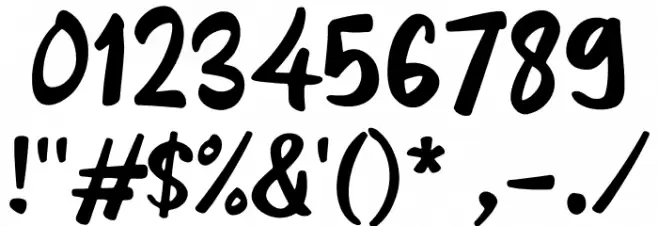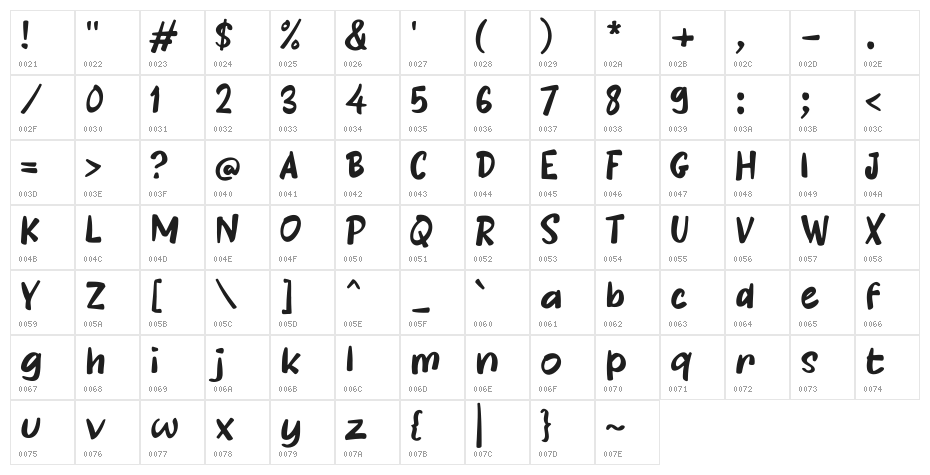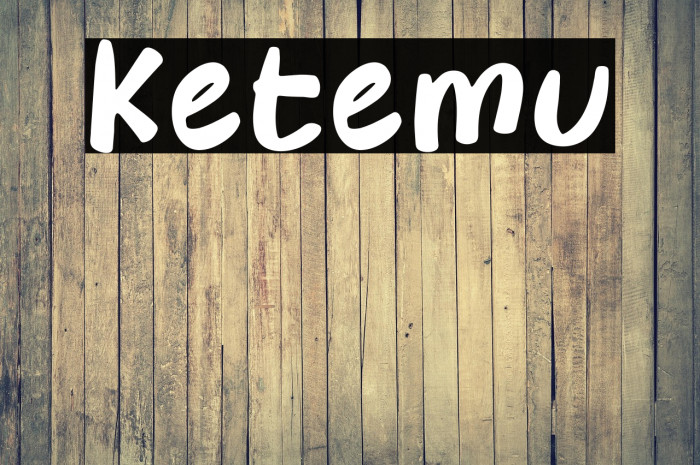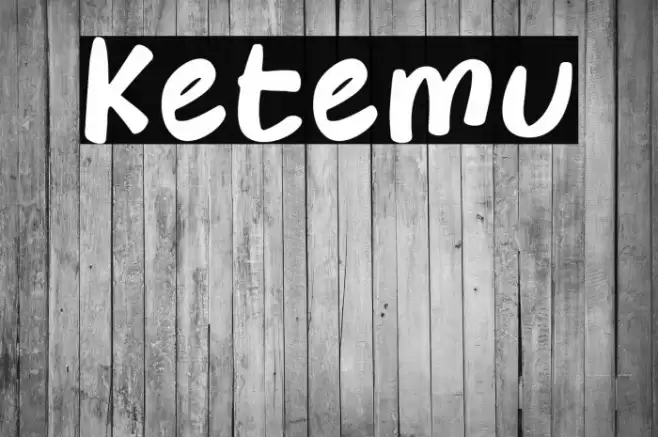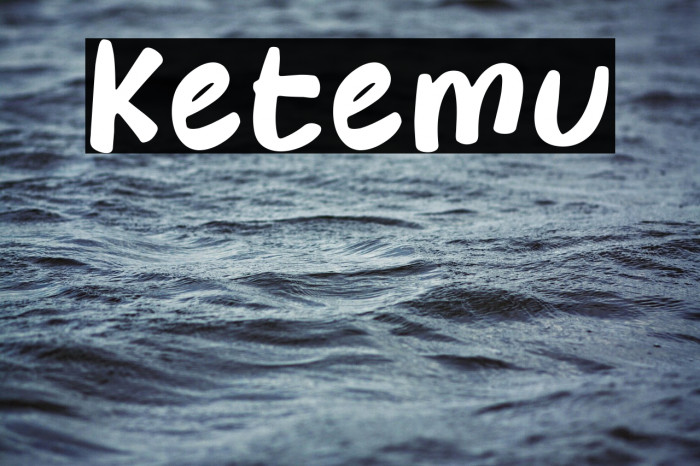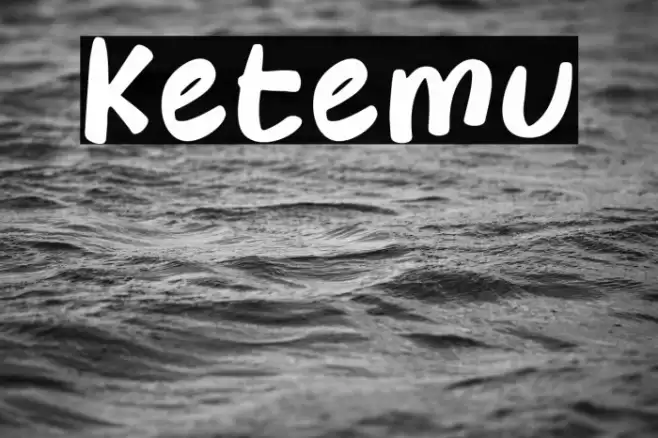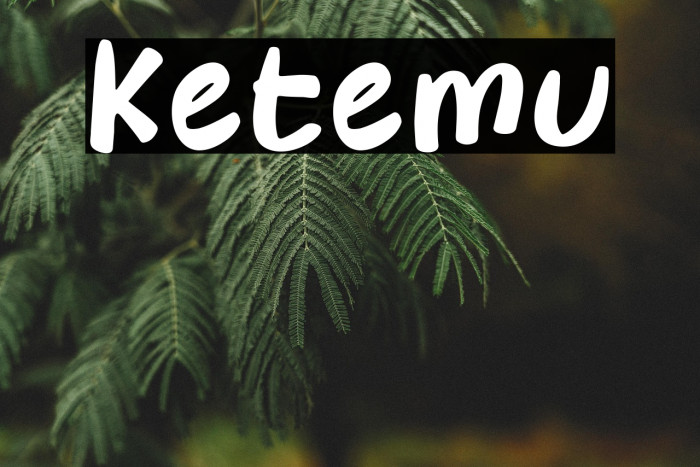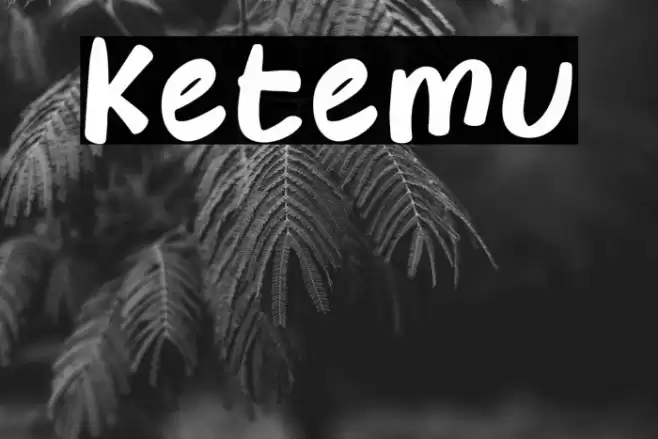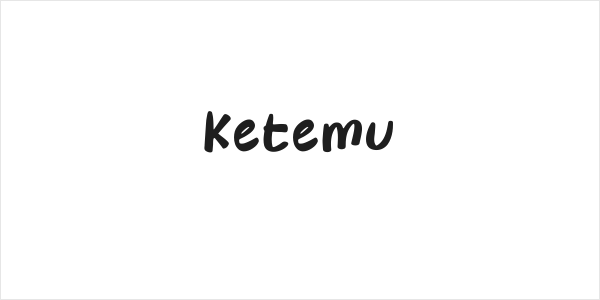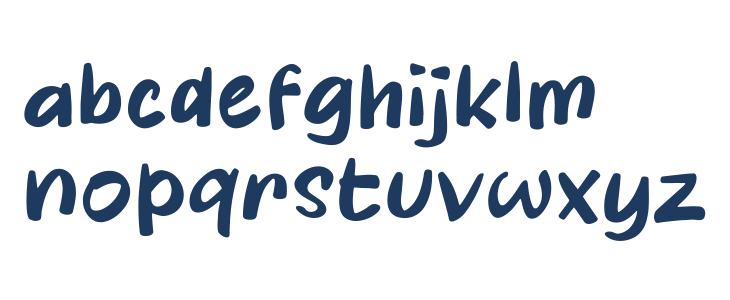
Ketemu Font
Ketemu Description
A playful, handwritten style font with rounded, casual letterforms.
| Overall Style | Casual, Friendly, Playful |
| Use Case | Headlines, Body text, Logos, Invitations |